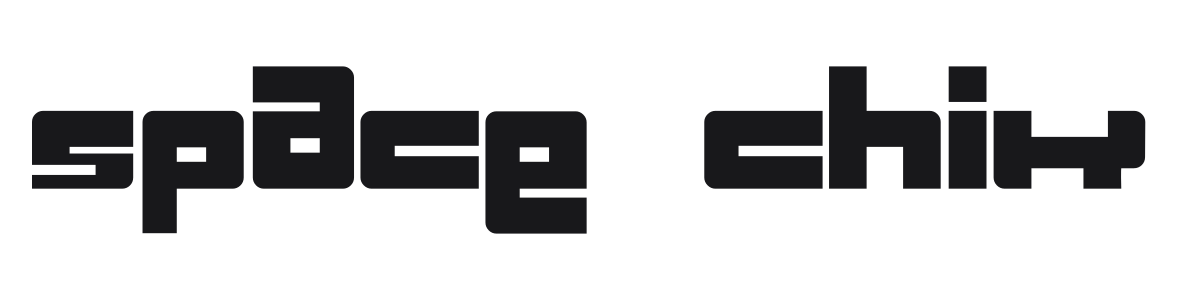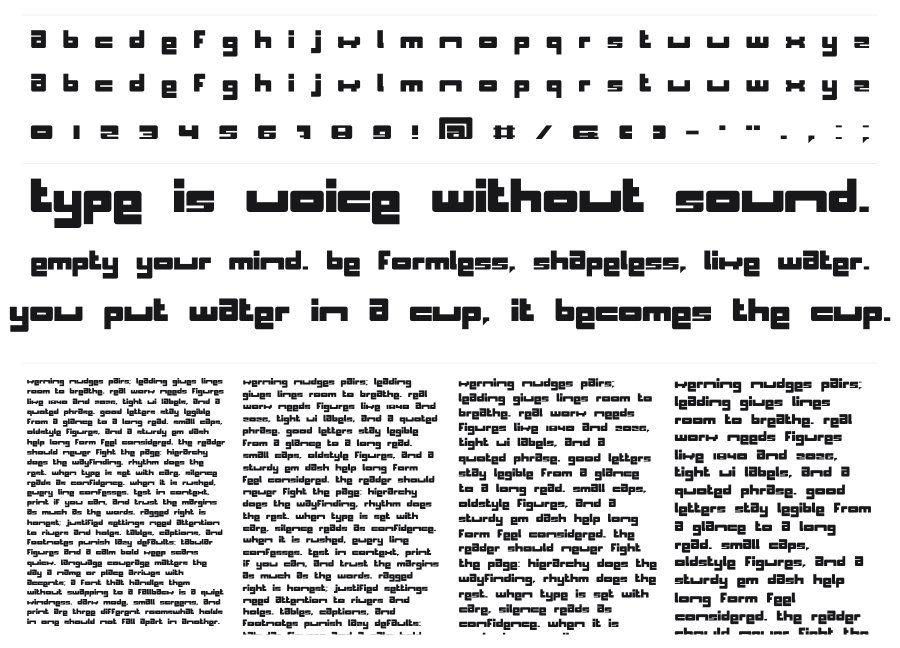
Space Chik
Space Chik is a bold square-geometric display font from 1999 with a heavy, modular construction built from thick rectangular strokes and near-zero stroke contrast. Each character feels like it was assembled from chunky tiles, with occasional notched cutouts adding visual intrigue to the otherwise rigid grid. The result is something between late-90s techno typography and a digital readout pushed to its heaviest weight.